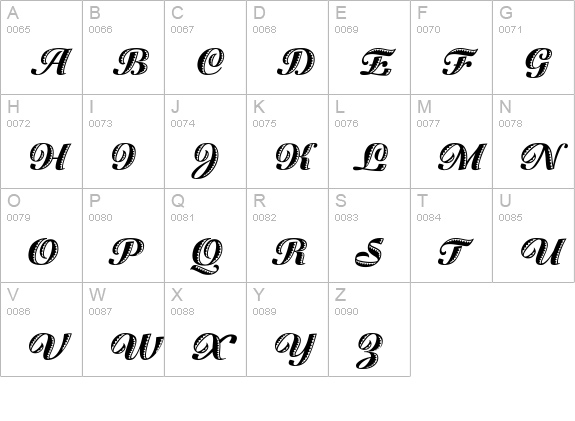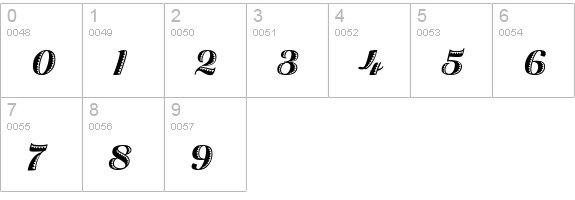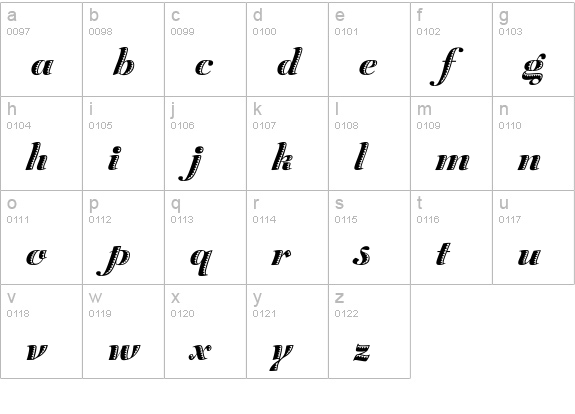
ZaragozaPlain Font Details
ZaragozaPlain is a versatile and elegant font that exudes a classic and timeless charm. Its clean lines and simple yet sophisticated design make it perfect for a wide range of projects, from branding to editorial design. The font's clarity and readability ensure that your message will always come across loud and clear. What makes ZaragozaPlain even more appealing is that it is available for free download at FontsMarket.com. This means that you can easily access this beautiful font without any cost, making it a valuable addition to your font collection. So whether you're working on a personal project or a professional design, ZaragozaPlain is a fantastic choice that won't break the bank. Download it today and elevate your designs with this stunning typeface.